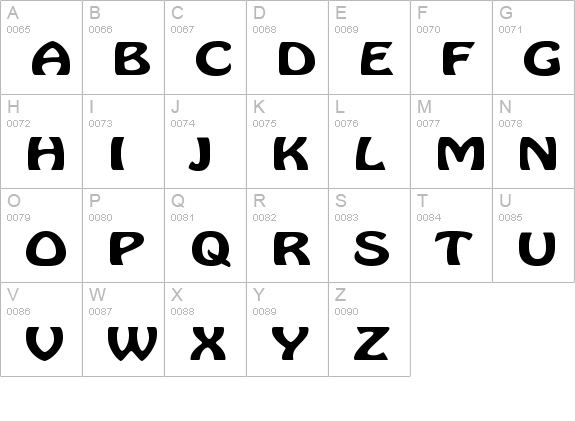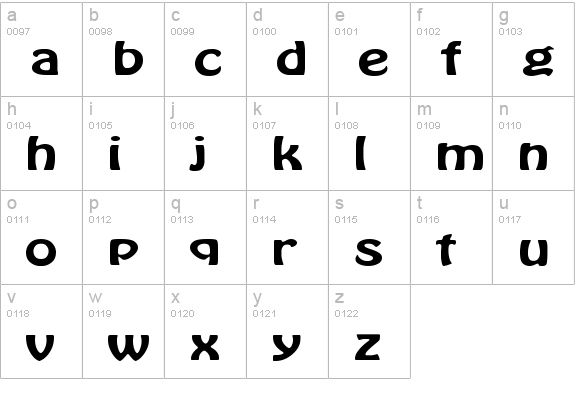
Hobo Ex Font Details
Hobo Ex font is a versatile and dynamic typeface that exudes a sense of urban grit and creativity. With its bold strokes and unique character design, this font is perfect for adding a touch of edginess to any project. Whether you're working on a poster, logo, or website design, Hobo Ex font will make a bold statement and capture the attention of your audience. Best of all, Hobo Ex font is available for free download at FontsMarket.com. This means you can easily access this stylish and eye-catching font to elevate your designs without any cost. Don't miss out on the opportunity to add a touch of urban flair to your projects with the Hobo Ex font - download it today and get creative!